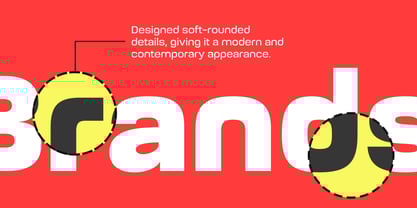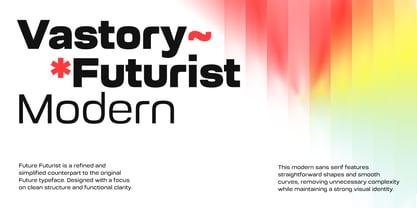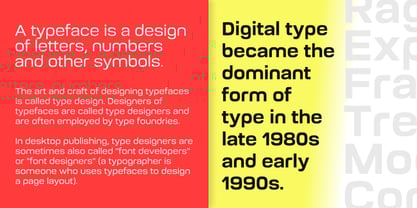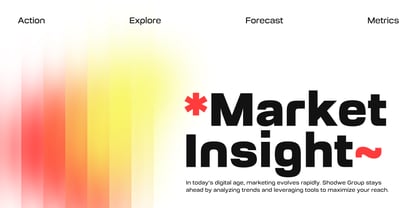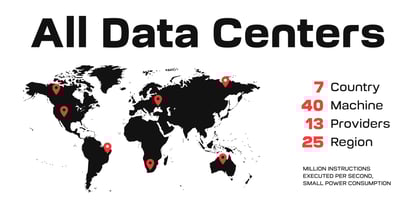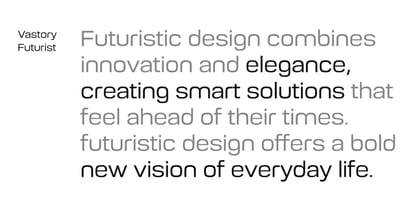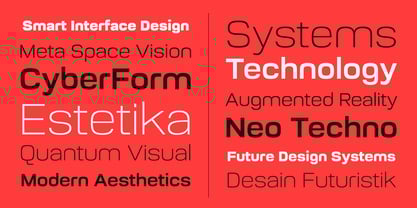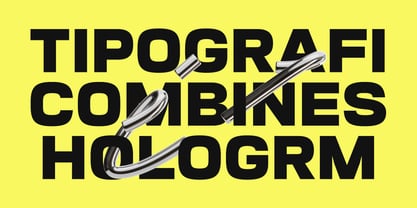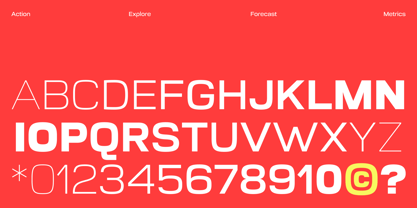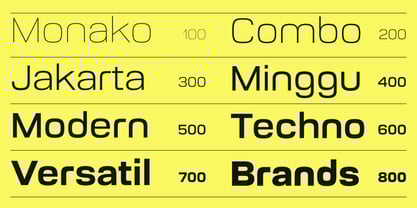
Vastory Futurist
by Fitrah Type
The Vastory Futurist Font Family was designed by Moch Fitrah Hidayat and published by Fitrah Type. Vastory Futurist contains 9 styles and family package options. More about this family
Vastory Futurist is a modern typeface that embodies a sleek and futuristic appeal. Its characters feature clean lines and precise geometric shapes, enhanced by a minimalist touch that reflects a forward-looking aesthetic. This design achieves a harmonious balance between advanced technology vibes and contemporary elegance, making it an ideal choice for branding, posters, digital interfaces, and visual identities that aspire to appear visionary and progressive. The font radiates innovation and dynamism, making it perfect for projects that seek to convey a modern, futuristic, and energetic atmosphere. With various weights available, Vastory Futurist adapts seamlessly to diverse applications, ensuring versatility and impact in every design.
Designers: Moch Fitrah Hidayat
Foundry: Fitrah Type
Fitrah Type was founded in 2020 and located in the beautiful island of Bali. We provide a variety of typefaces for your various needs. The fonts we create are inspired by urban culture, music, street art, and fashion. Our goal is to establish a type of foundry that delivers the best product and continually refines and expands our craft. We provide custom typography services as well as modifications and alterations to fonts from our catalog. To find out about new font releases and special deals follow us on Instagram @FitrahType